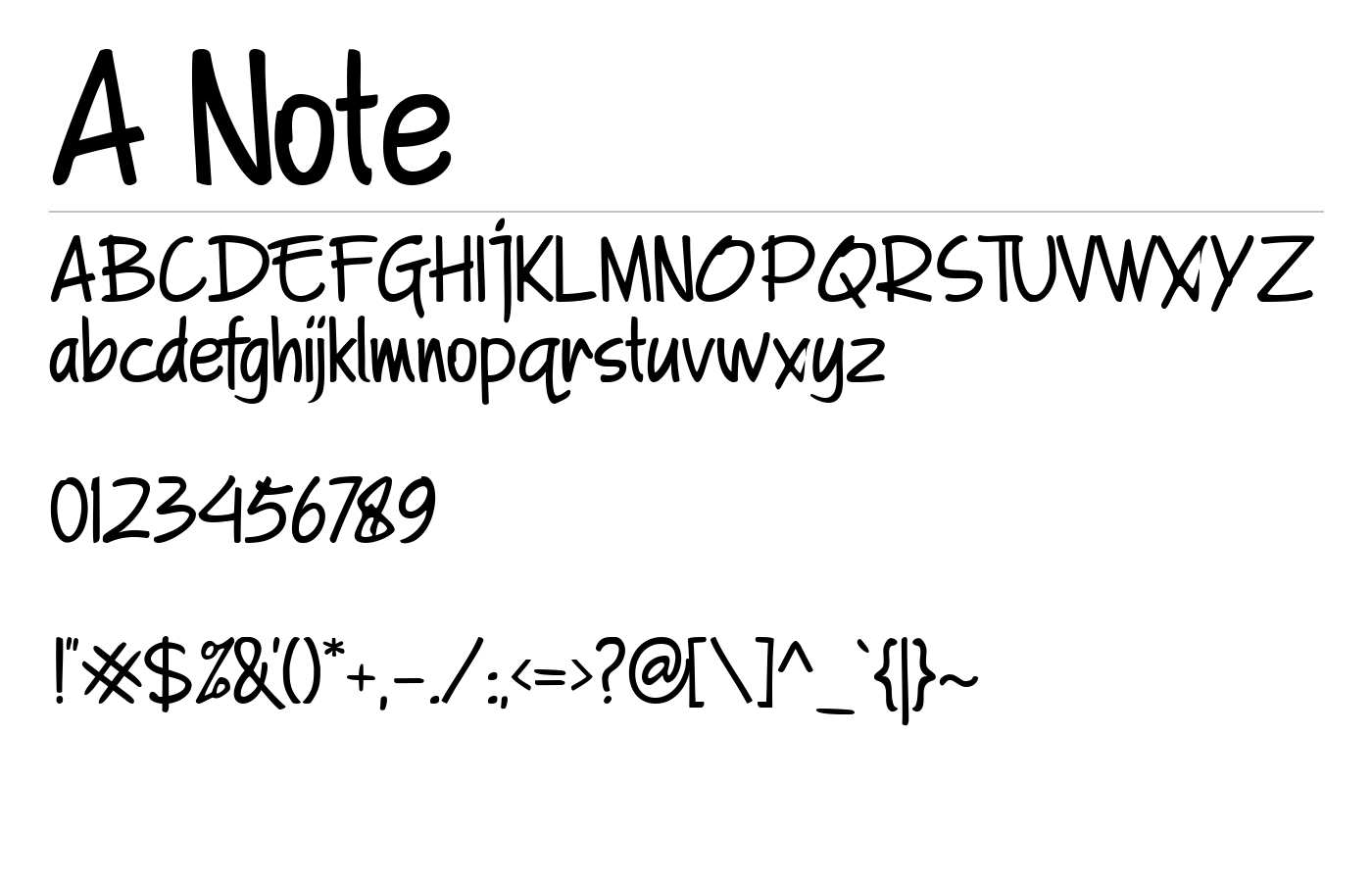
A Note Font is a casual, handwritten sans serif typeface with a warm and friendly personality. Its slightly irregular strokes and upright, playful letterforms make it perfect for informal designs, adding a personal touch to invitations, playful branding, or educational materials. This font works well where a relaxed, approachable style is needed, especially for headlines and short texts that aim to engage with a lighthearted, human feel.
A Note Font
About A Note Font
| Font family | A Note Font |
| Designer | Musthafa Kamal Emje - Afkari Studio |